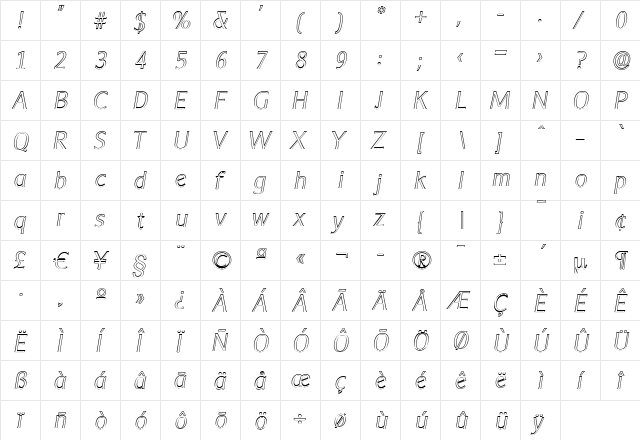
AlexanderBeckerOutline-ExLight Italic Font Preview
Design Context for AlexanderBeckerOutline-ExLight Typeface
AlexanderBeckerOutline-ExLight brings ornamental detail and strong personality to headlines and identities, where visual impact matters more than quiet functionality. Its italic angle brings a sense of urgency and motion to the letterforms. Its slender proportions lend an understated elegance to any composition.
Font Pairing: Pair with a clean neutral sans-serif for body copy to let AlexanderBeckerOutline-ExLight's character lead without overwhelming the composition.
Pro Tip: Treat AlexanderBeckerOutline-ExLight as the centrepiece of your typographic hierarchy. One strong heading set in a decorative face can carry an entire layout.